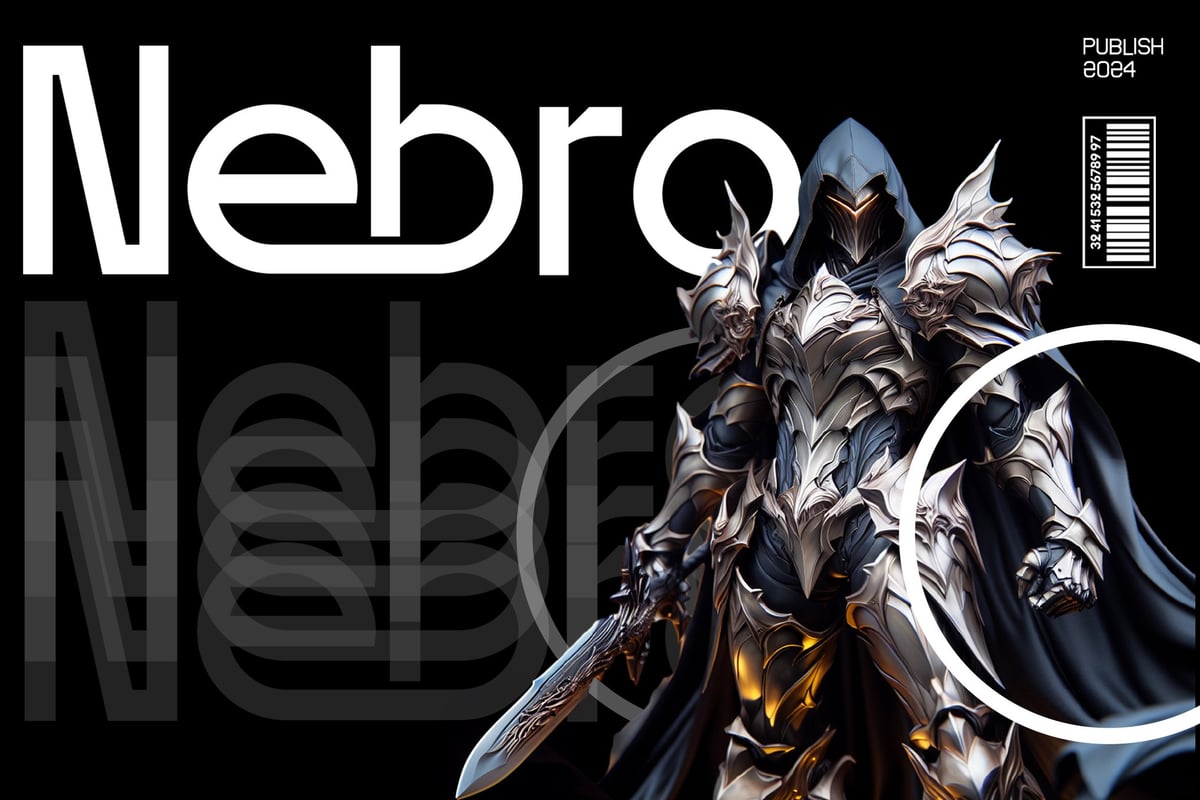
Nebro – Modern Sans Serif Typeface
Nebro is a sleek, modern sans serif typeface built for bold branding, clean layouts, and professional design work.
With its balanced letterforms, consistent stroke weight, and minimalist aesthetic, Nebro brings a contemporary edge to any project. Whether you're designing a logo, building a website, crafting editorial layouts, or developing product packaging, this typeface delivers clarity and confidence at every size.
Nebro includes a full character set with uppercase and lowercase letters, numerals, punctuation, and multilingual support — making it a reliable choice for global design projects.
- Ligatures and stylistic alternates